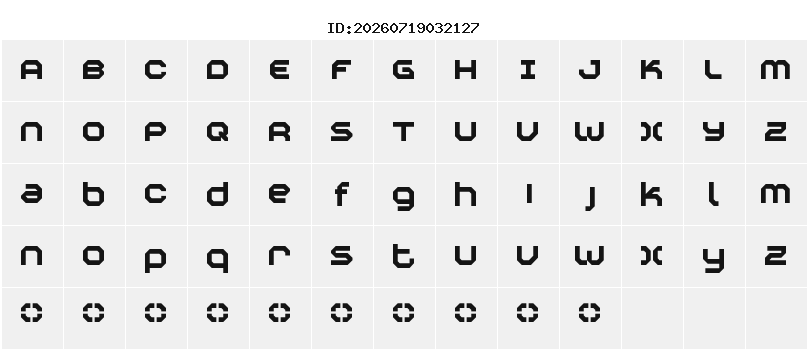
Construktiv Preview
About Construktiv.ttf
Construktiv.ttf is a modern, elegant sans-serif font designed for ultimate readability and visual harmony. Perfect for branding, headlines, web design, and print materials.